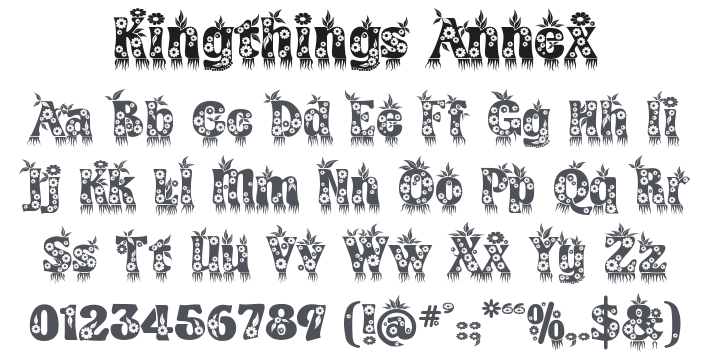
Kingthings Annex Font
About Kingthings Annex
Obviously based on Kingthings Organica. Annex Lives in the Annex and signs everything Annex, She is a real Earth Mother type - bless her, and constantly plants, fails to water and swears at, and then paints and draws flowers. I love her deeply - so this font is for her.